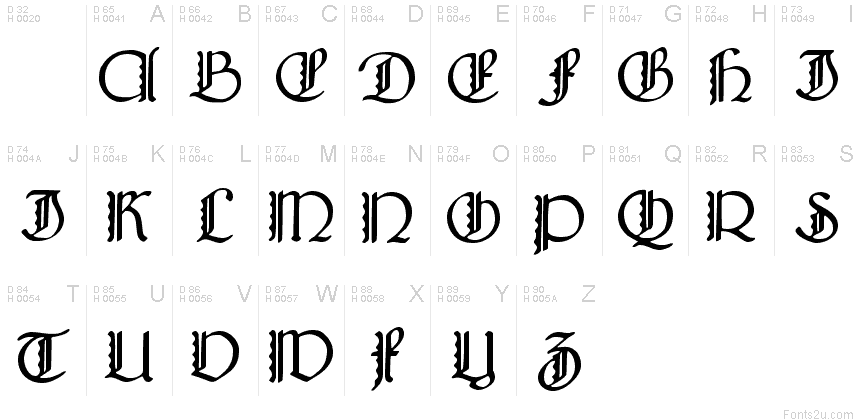
Bridgnorth Capitals
Bridgnorth Capitals font by PJL is a free Gothic medieval face with tall, ribbon-like strokes and sharp curled flourishes that give words an old manuscript presence. The narrow capitals knit together into a dark, rhythmic texture, making it a strong fit for fantasy titles, tavern signs, book covers, posters, album art, and themed branding.
Bridgnorth Capitals works best when you want atmosphere without turning rough or chaotic, since the forms stay clean even with all the ornament. This free font also suits game menus, event flyers, packaging, and logos, especially when paired with a plain serif or simple sans for supporting text.